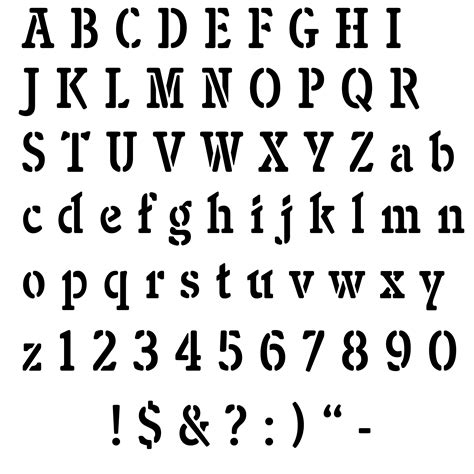
Stencil Letter Font. Stencil fonts look like physical stencils, where a portion of the letter is filled with ink or paint and a section of the letter. Get creative with stenciled fonts for your next project.